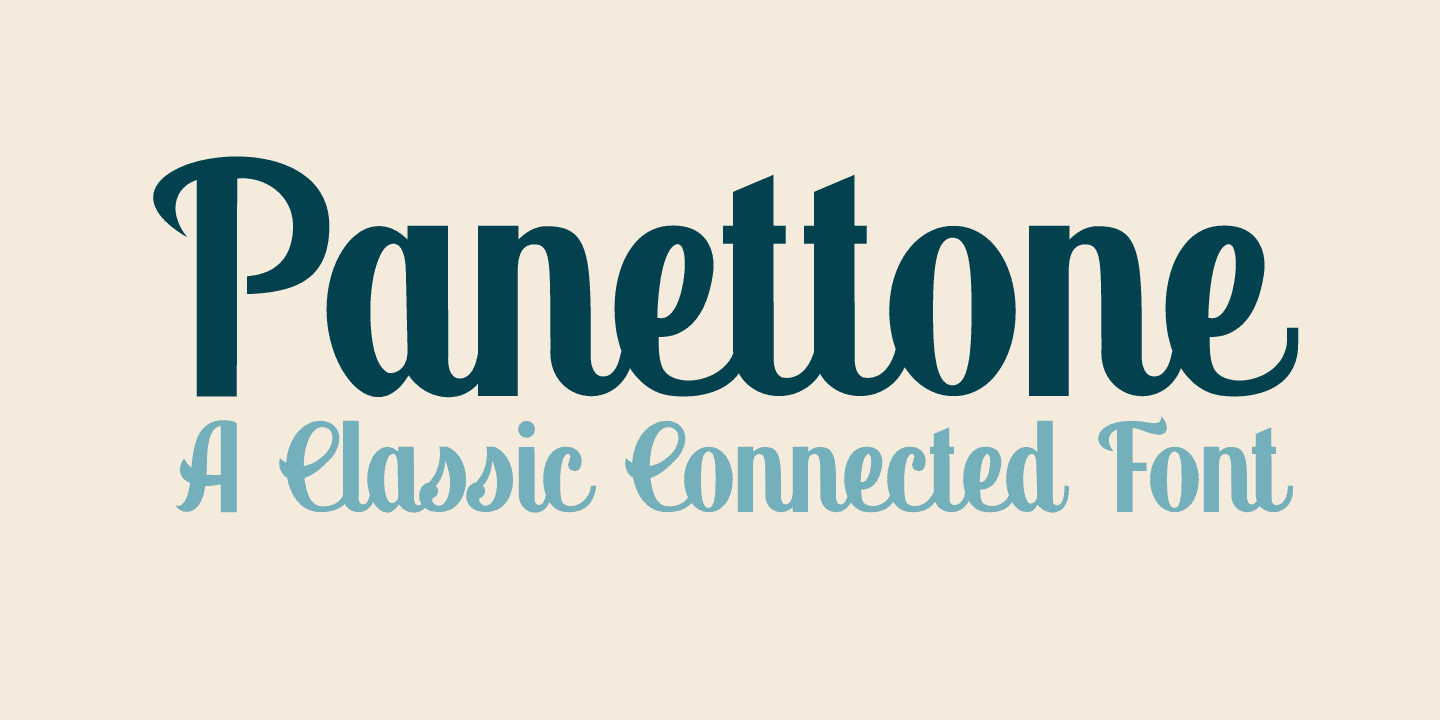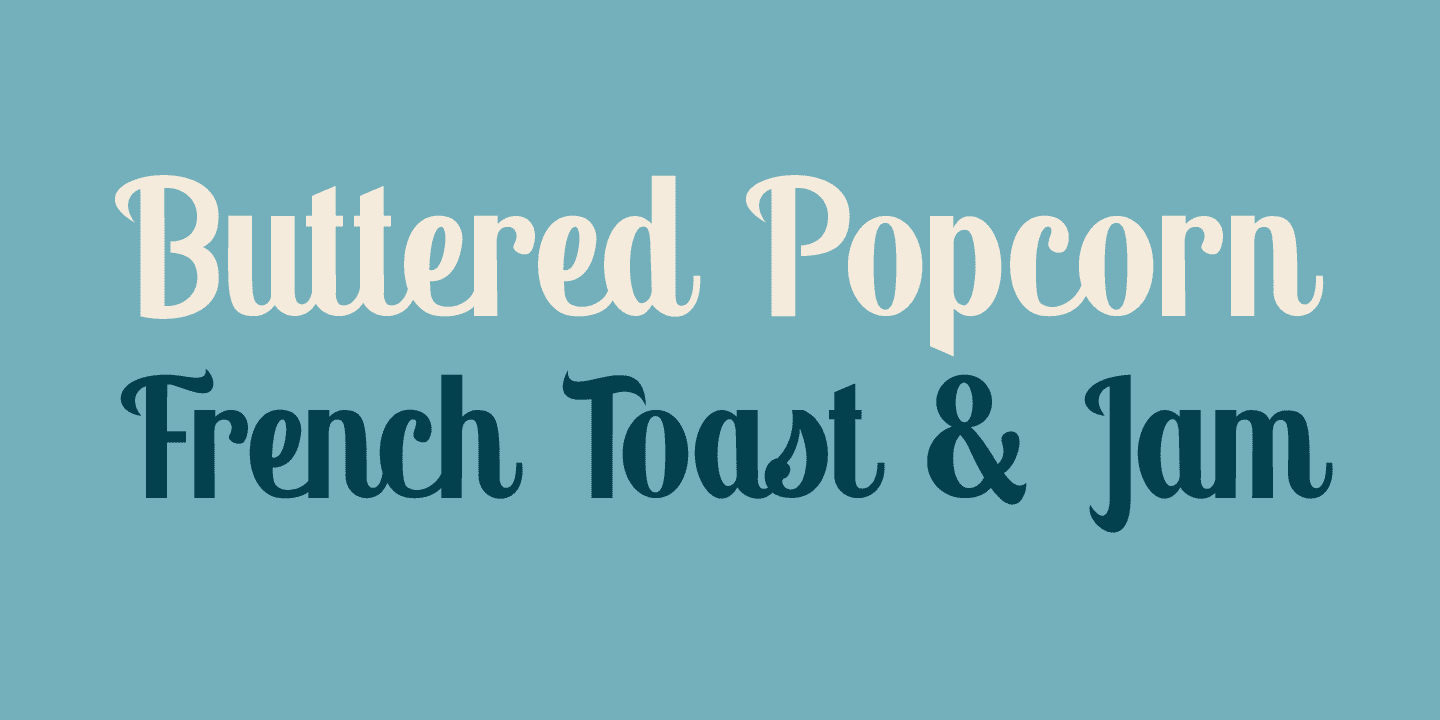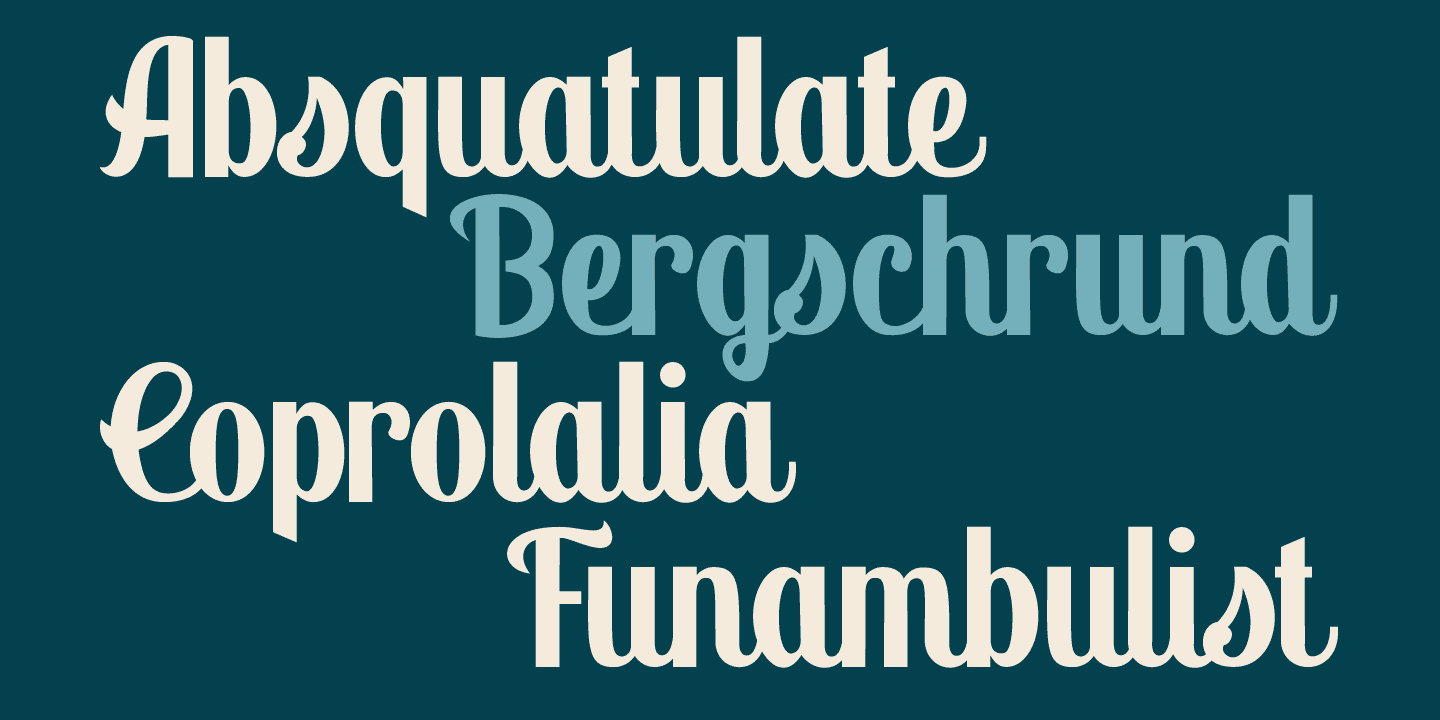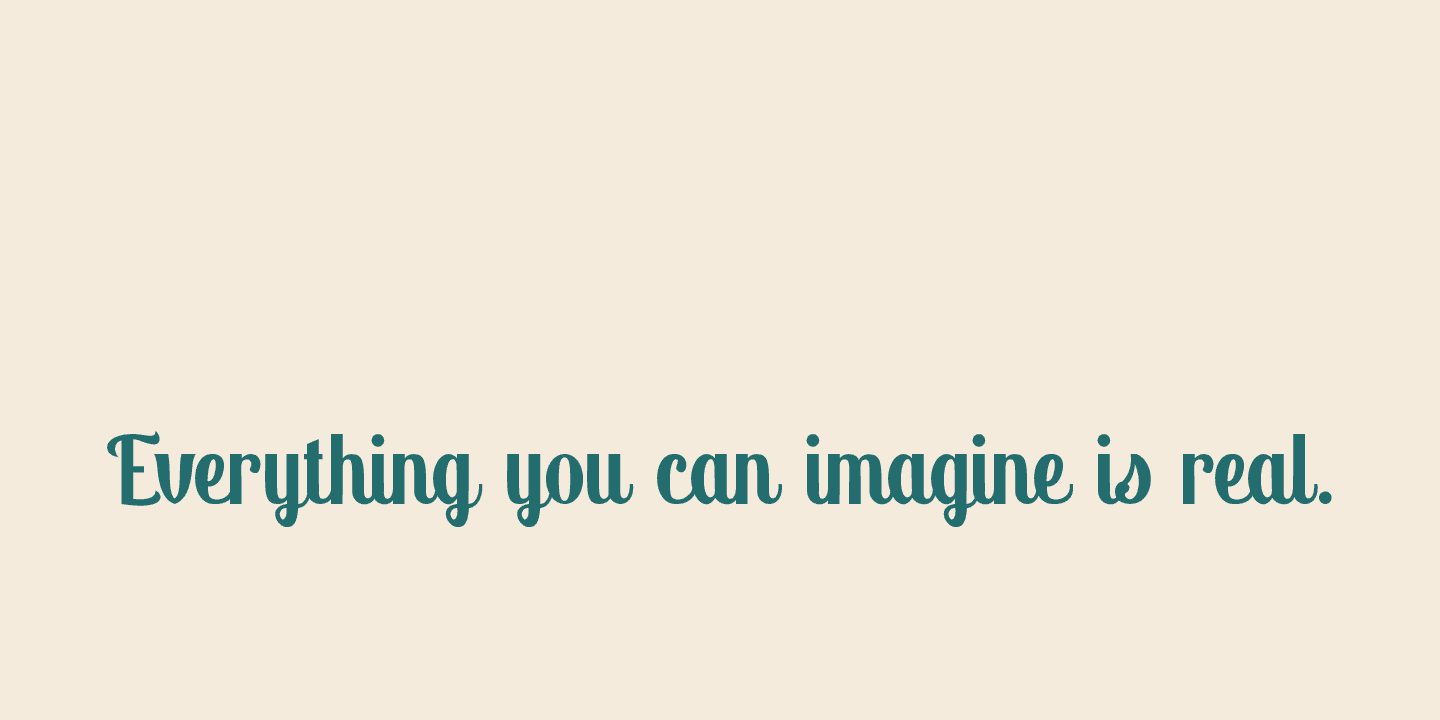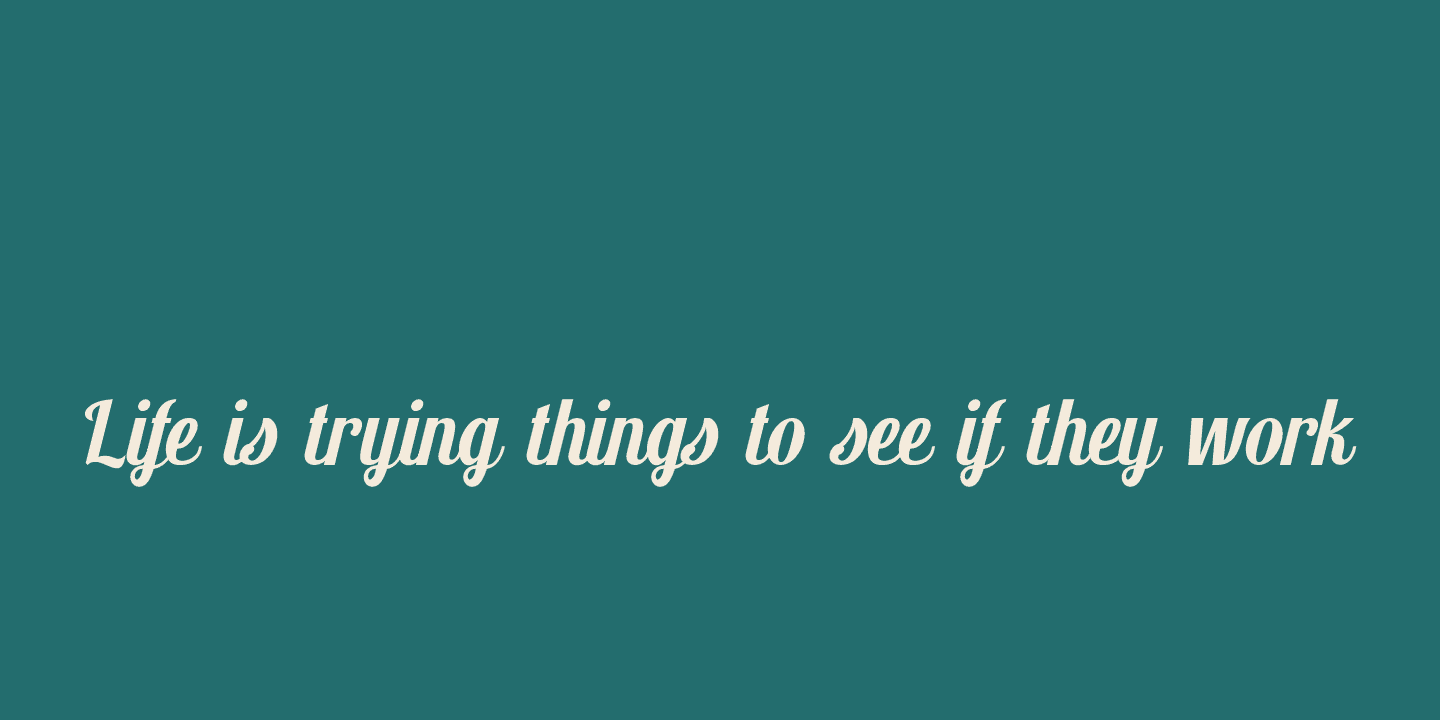
After I created my font Montello, I decided to continue with the classic connected font look. Meet Panettone. Panettone is a sweet bread loaf, originally from Milan, which is usually served during Christmas. Of course, you could use my Panettone script for your Christmas cards, but Panettone won’t look bad on invitations, book covers and products that need a classy look. Comes with ligatures for letters that just don’t connect well.
OpenType features: Ligatures, Alternates